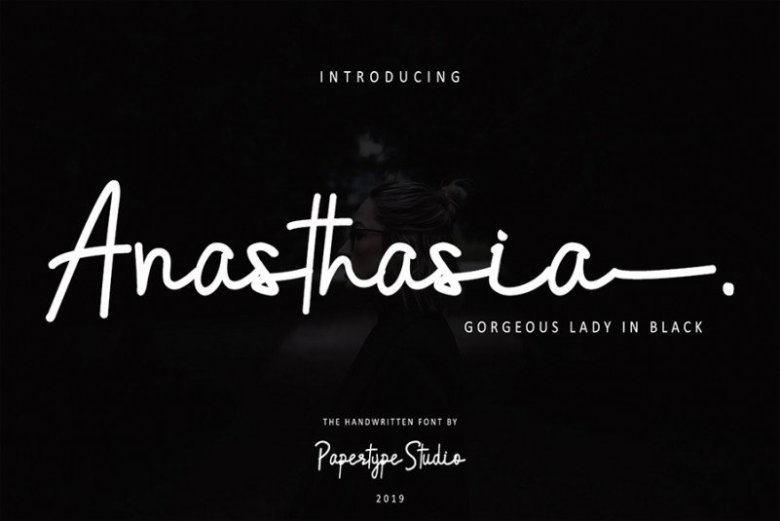
Anasthasia Script Font
This is signature handwritten. Beautiful handwritten fonts with custom shapes to meet your design needs and can give the impression of a signature in the design. Introducing Anasthasia Font. It’s a modern script with a handwritten and script style make this font looks stylish, natural, and comfortable for any your projects. Anasthasia can use for photography, watermark, ads, social media, logo & branding, invitation, label, wedding, and anything else that need handwriting taste.